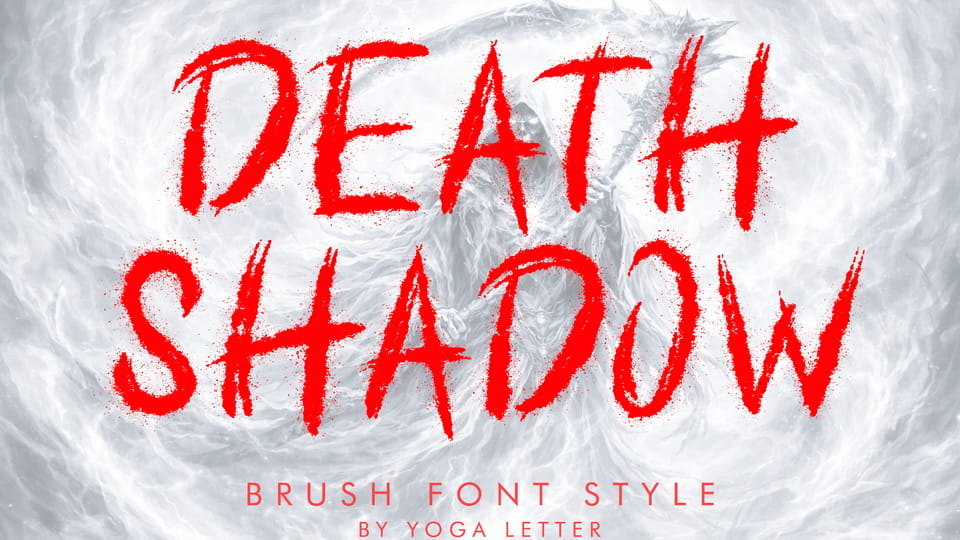
Download Death Shadow font, a bold and rough brush typeface. It’s perfect for movie titles, horror movies, action movies, tattoos, stickers, banners, posters, metal concerts, logos, prints, branding, banners, Halloween, Valentine’s Day, spring, summer, holidays, t-shirts, screen printing, and more.